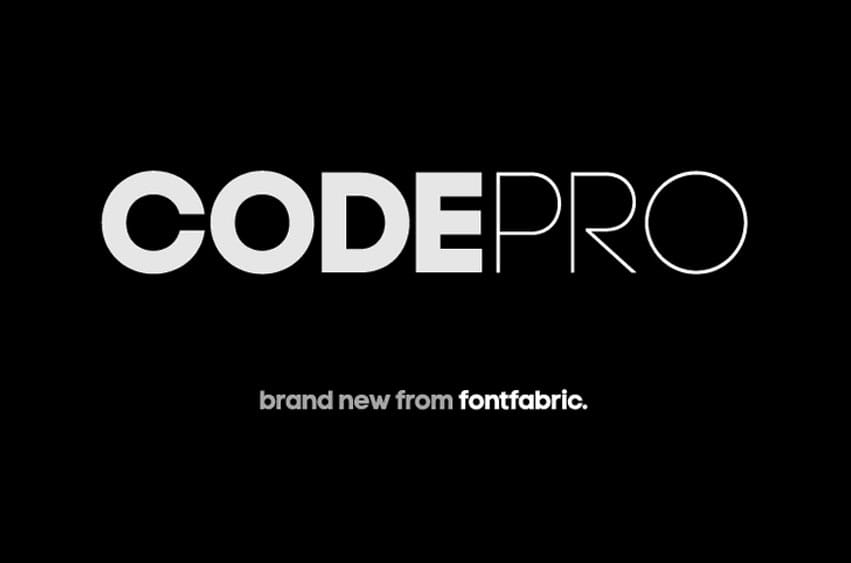
Code Pro Font family is derived directly from classical sans serif type faces like Avant Garde and or Futura, but is more contemporary in concept.
It is minimalist, good looking, and to the point. But Fontfabric realize that Code font can be used for virtually any forms of graphic design –online, offline, motion and more; it is also ideal for textiles such as t-shirts and other products as in posters and logos.-